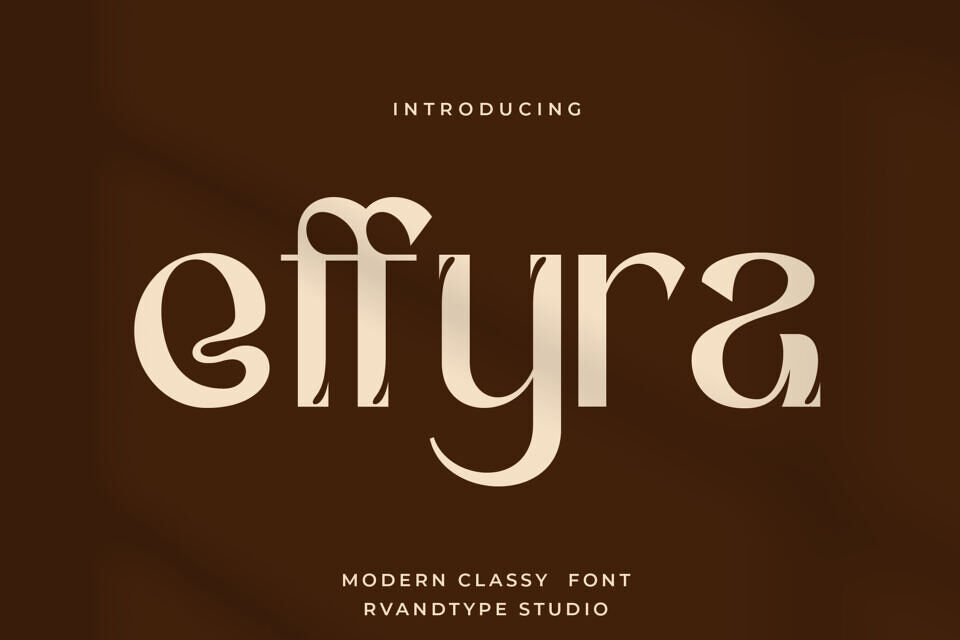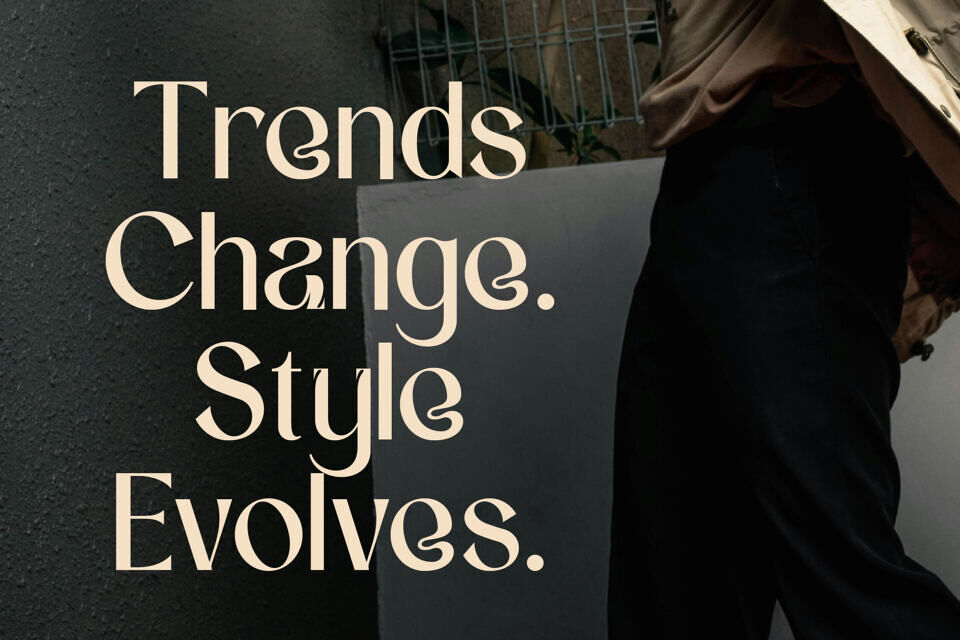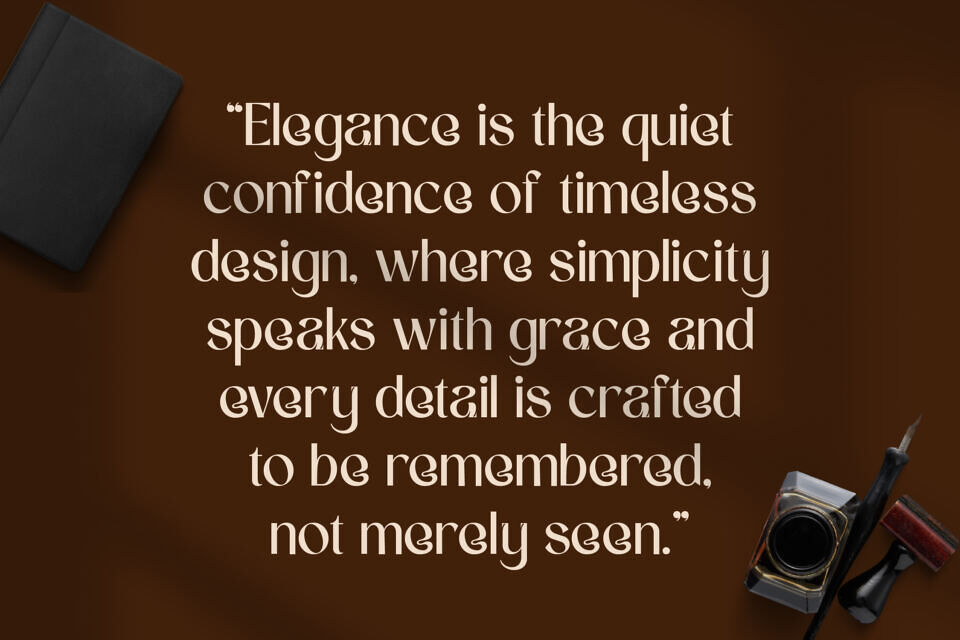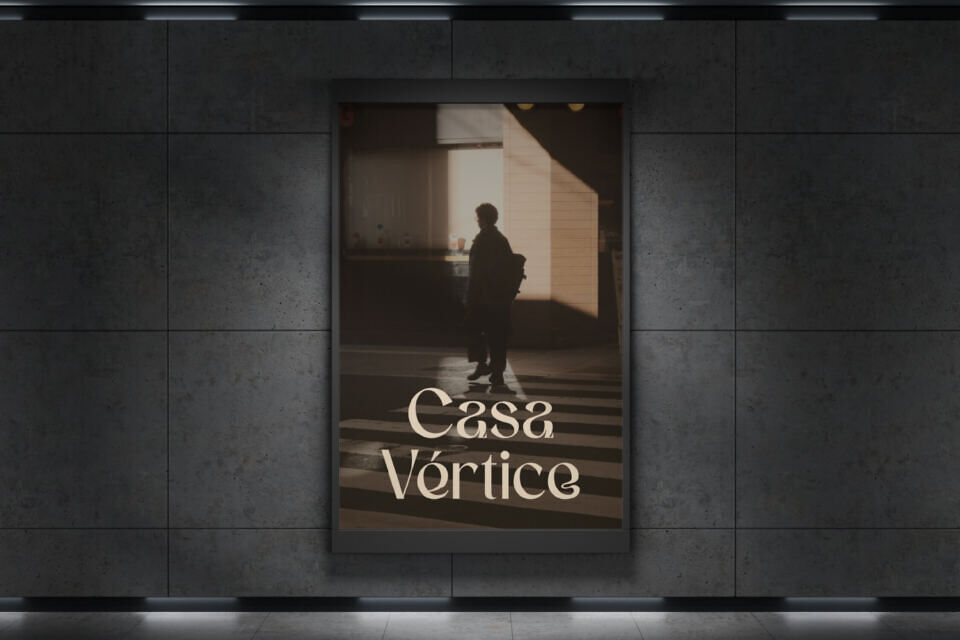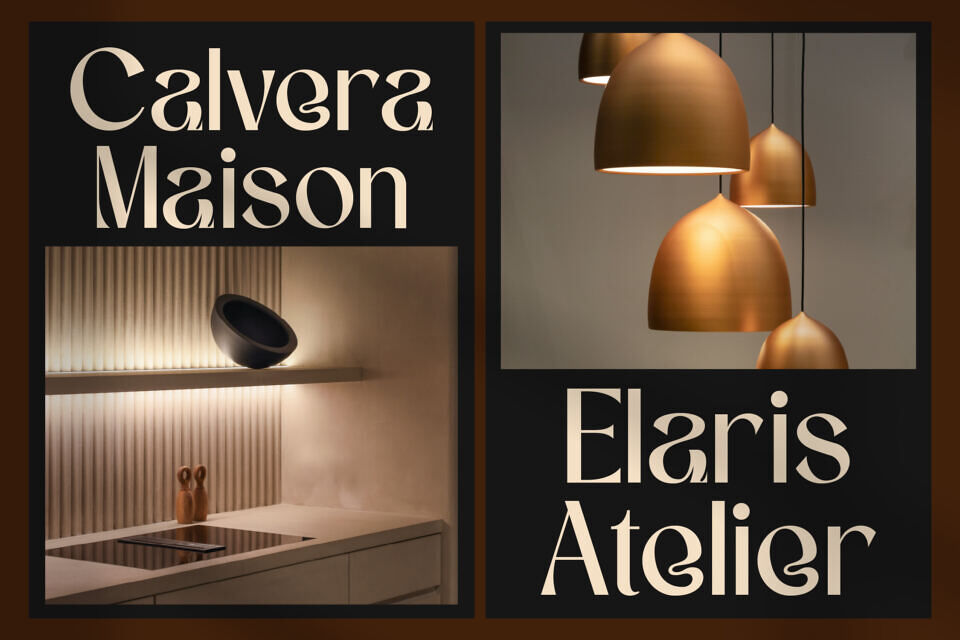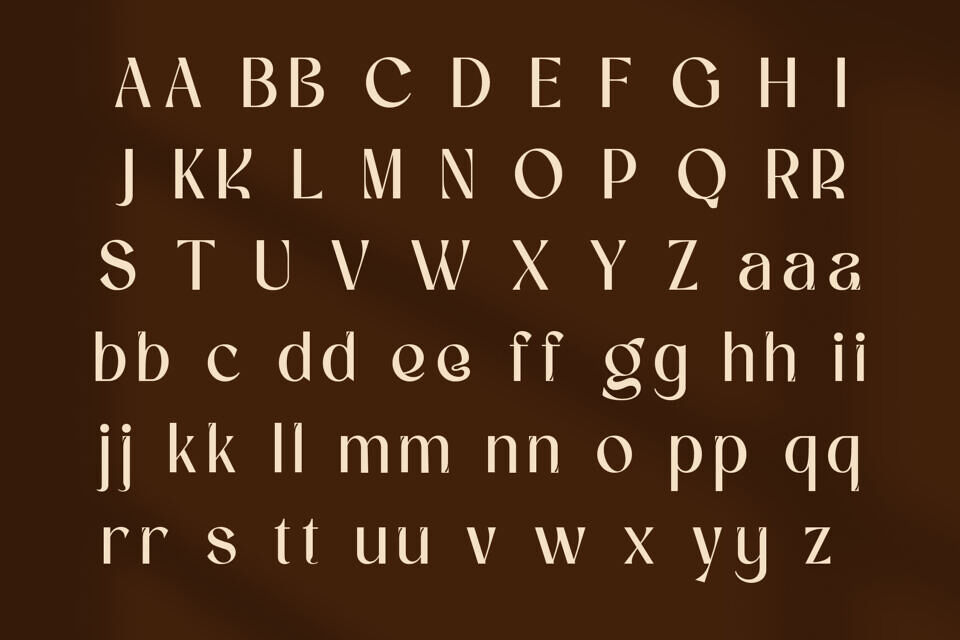
Effyra Font
Effyra is a modern classy serif font that blends elegance, softness, and contemporary character into a refined typographic experience. Designed with graceful curves, smooth stroke contrast, and distinctive ligatures, Effya delivers a luxurious yet approachable feel.
This font features stylish alternates and ligatures that add personality and uniqueness to every word, making your designs feel premium and expressive. Its balanced proportions and clean sans serif details ensure excellent readability while maintaining a fashionable, editorial look. Effyra is perfect for branding, logos, fashion editorials, beauty products, luxury packaging, wedding designs, posters, magazine headlines, and high-end social media visuals.